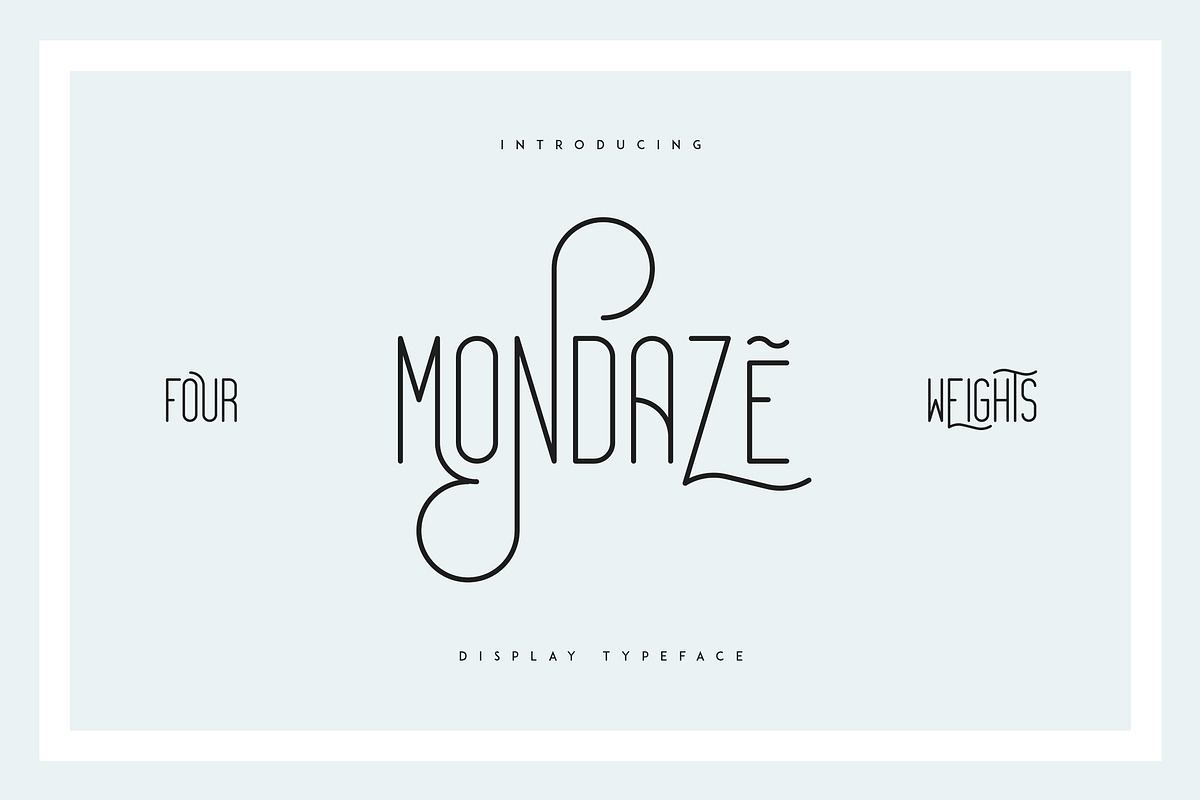
The Mondaze Typeface - 4 Weights Free Download is a versatile and modern font family that offers four distinct weights to suit any design project. From bold and impactful to light and elegant, this typeface gives you the flexibility to create a wide range of designs, from branding and logos to websites and print materials. Its clean lines and balanced proportions ensure a polished and professional look.
Mondaze Typeface - 4 Weights Free Download is the perfect choice for designers who need a high-quality, adaptable font family for multiple applications. Download this stunning typeface today and take advantage of its versatile weights to enhance your designs!